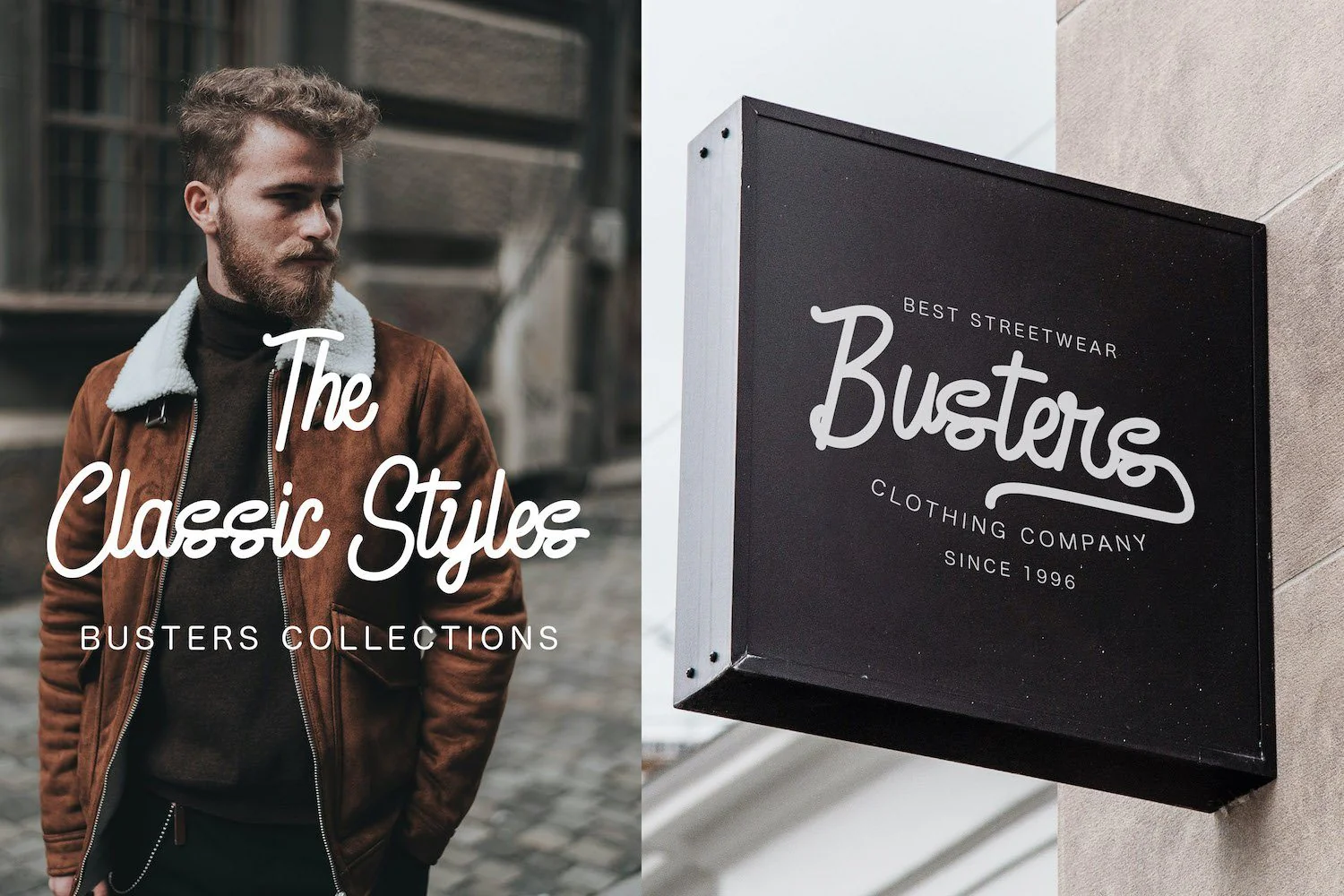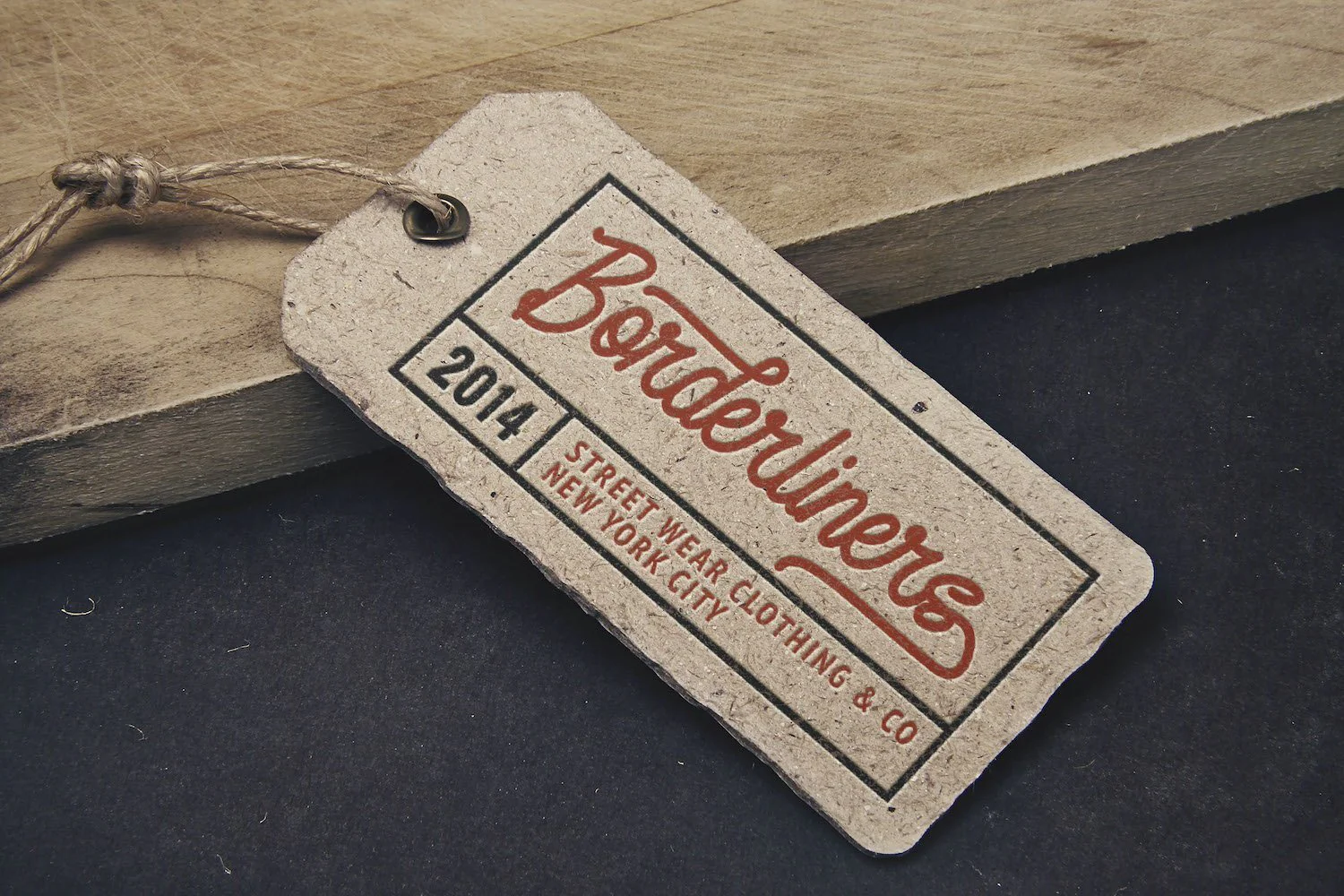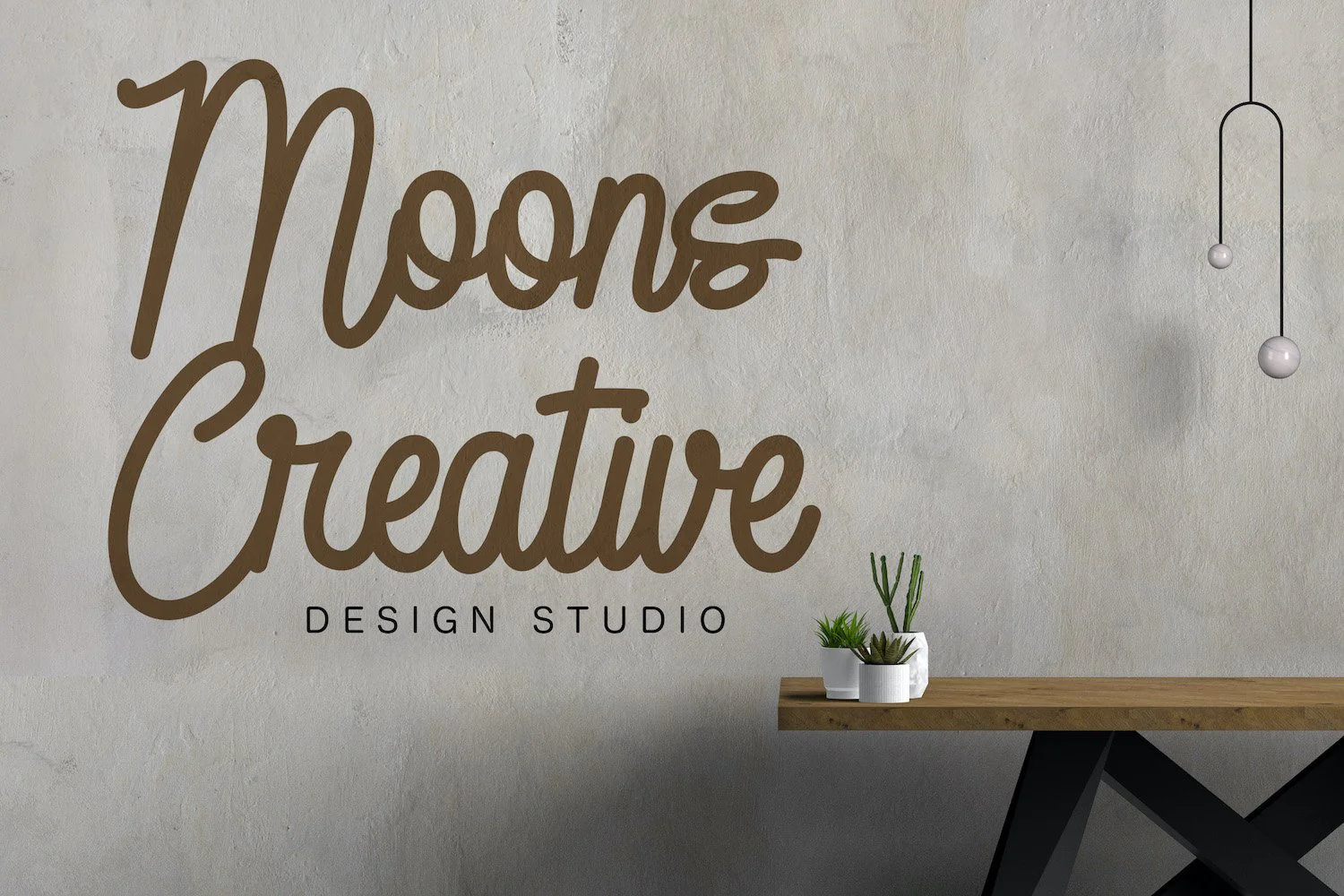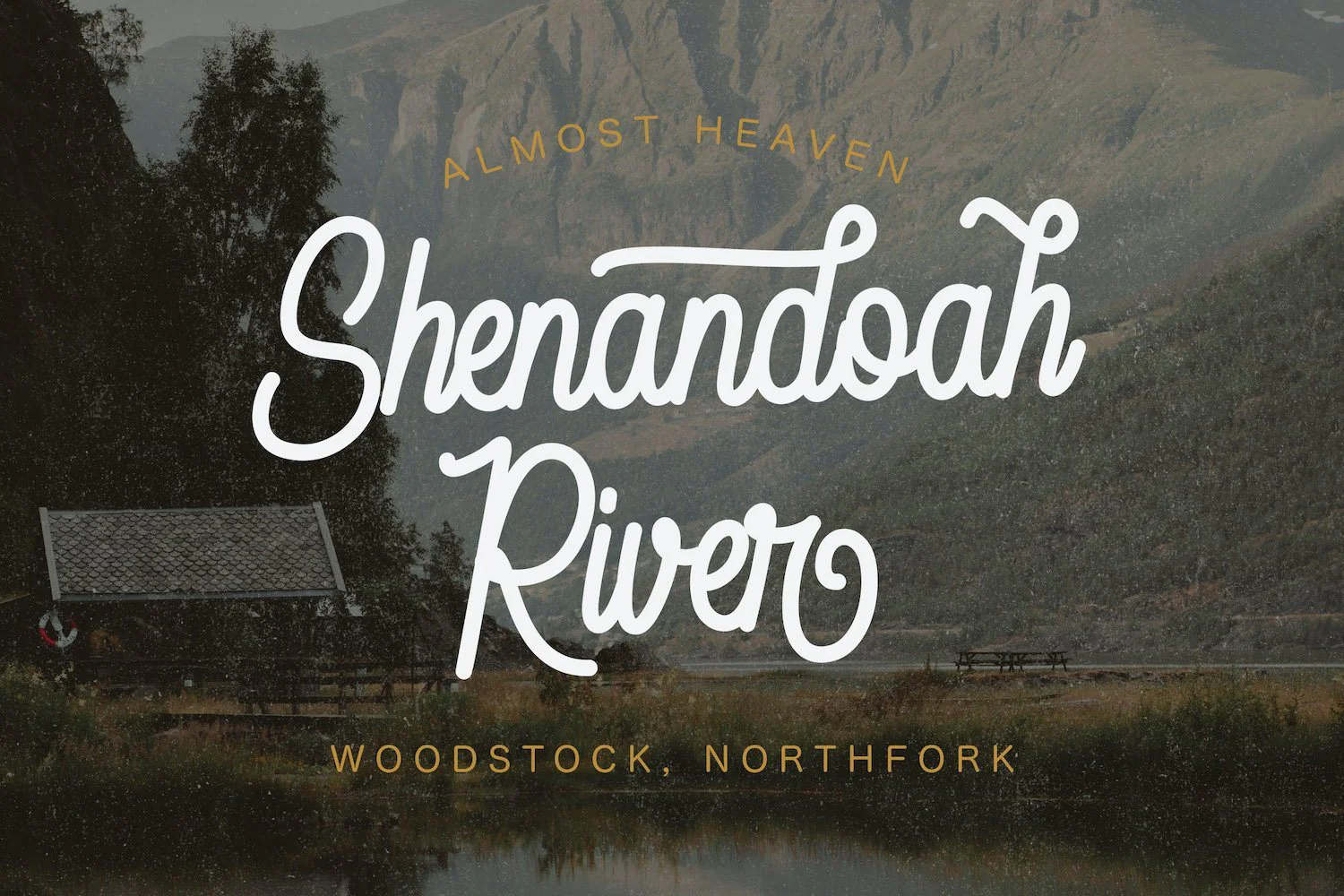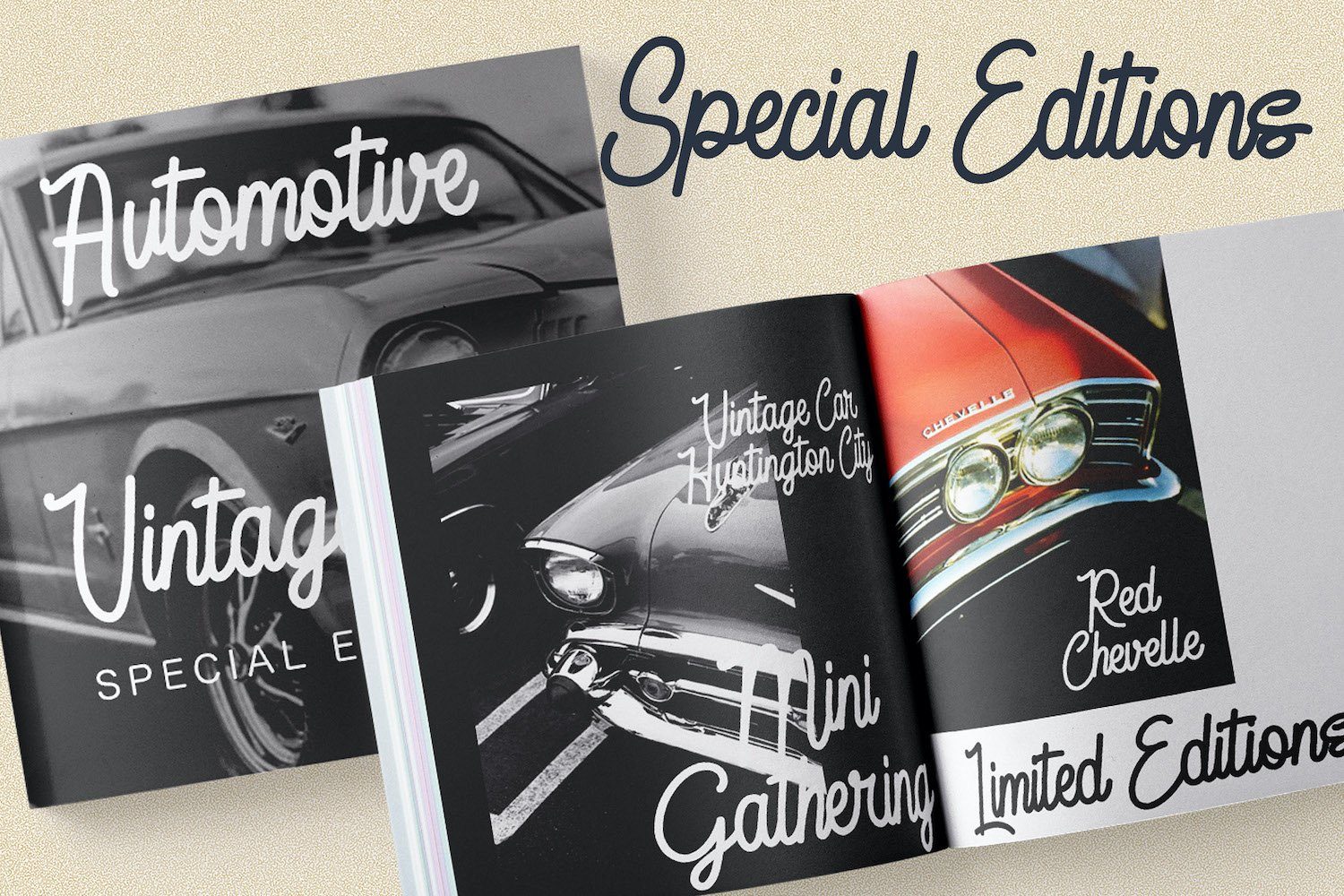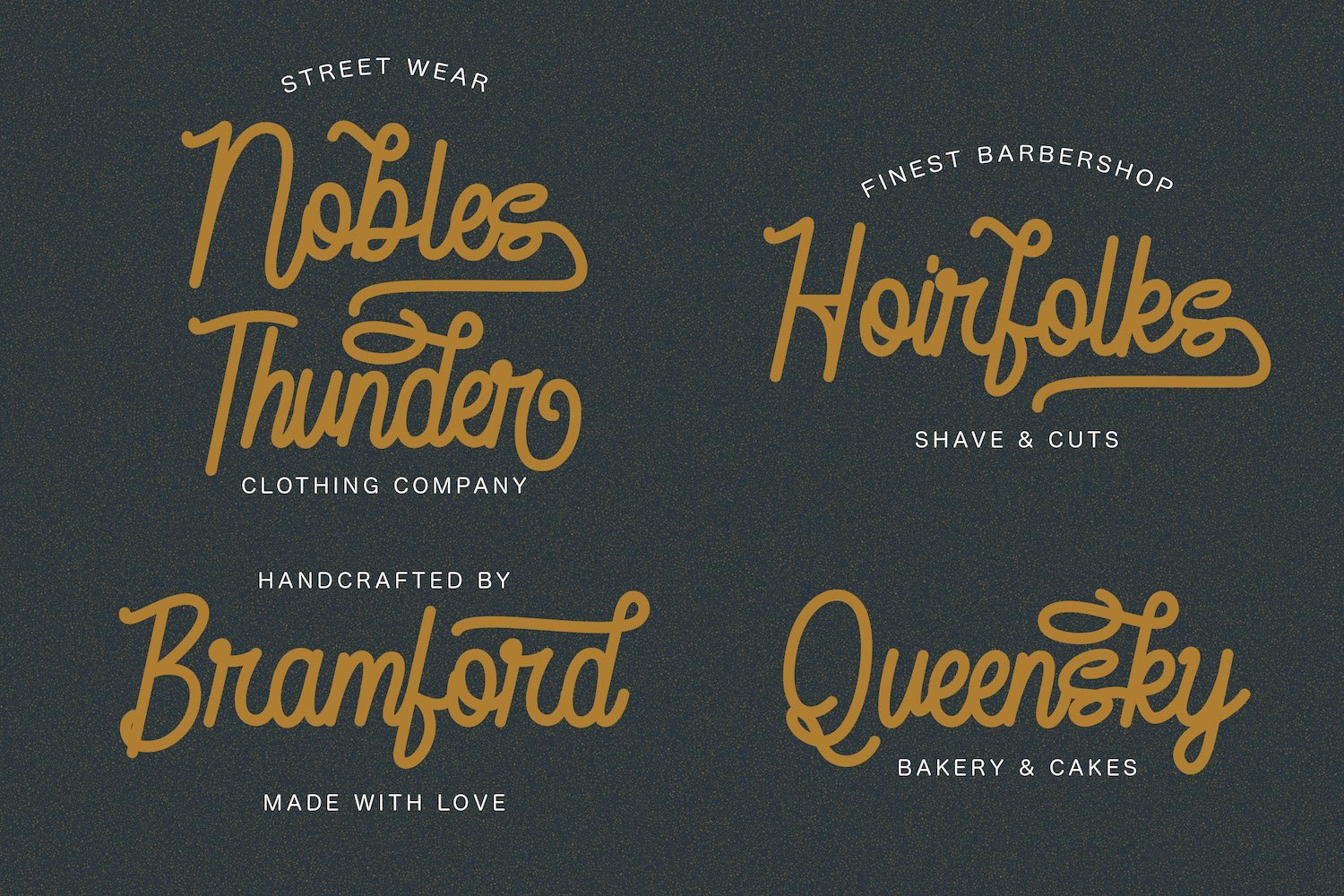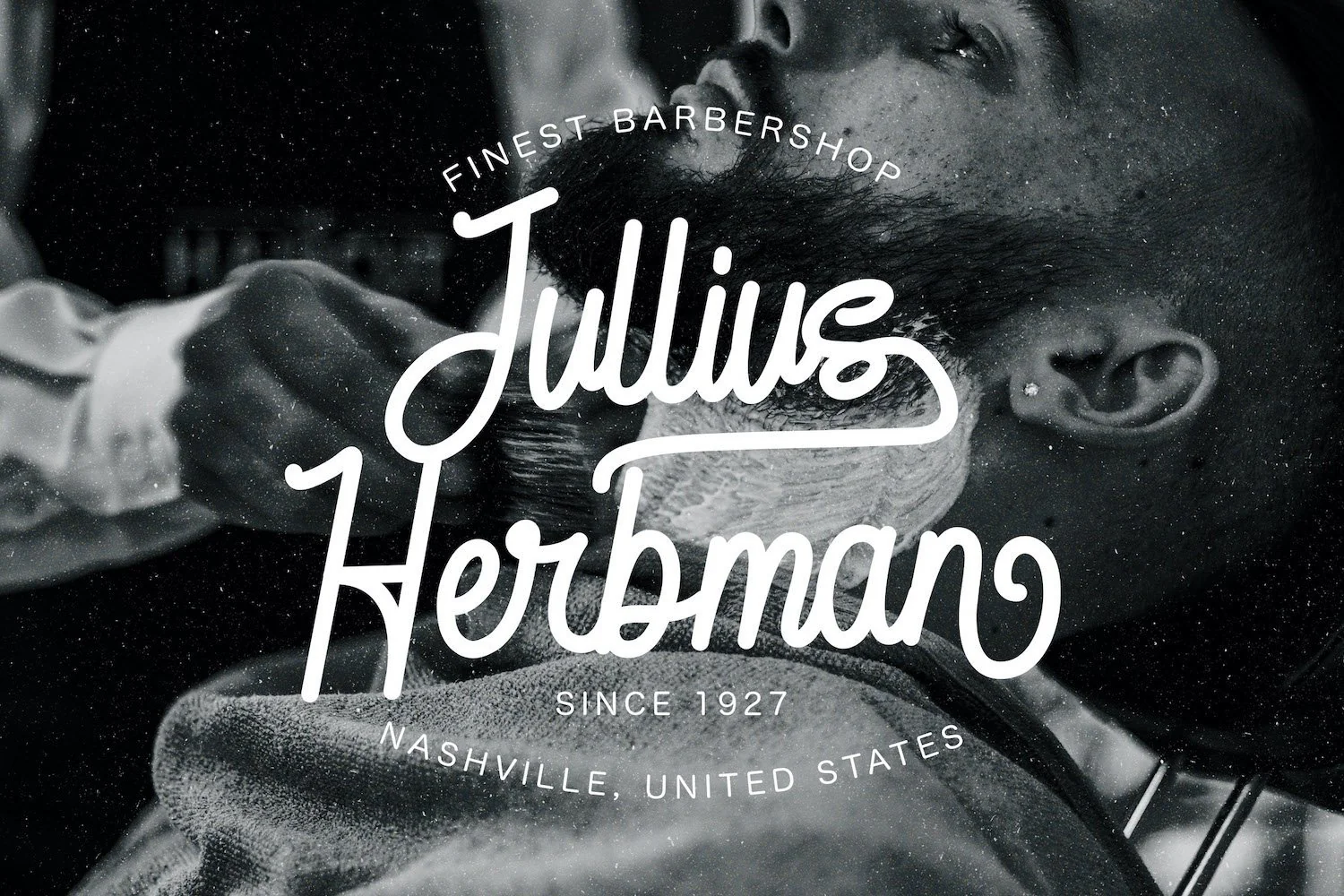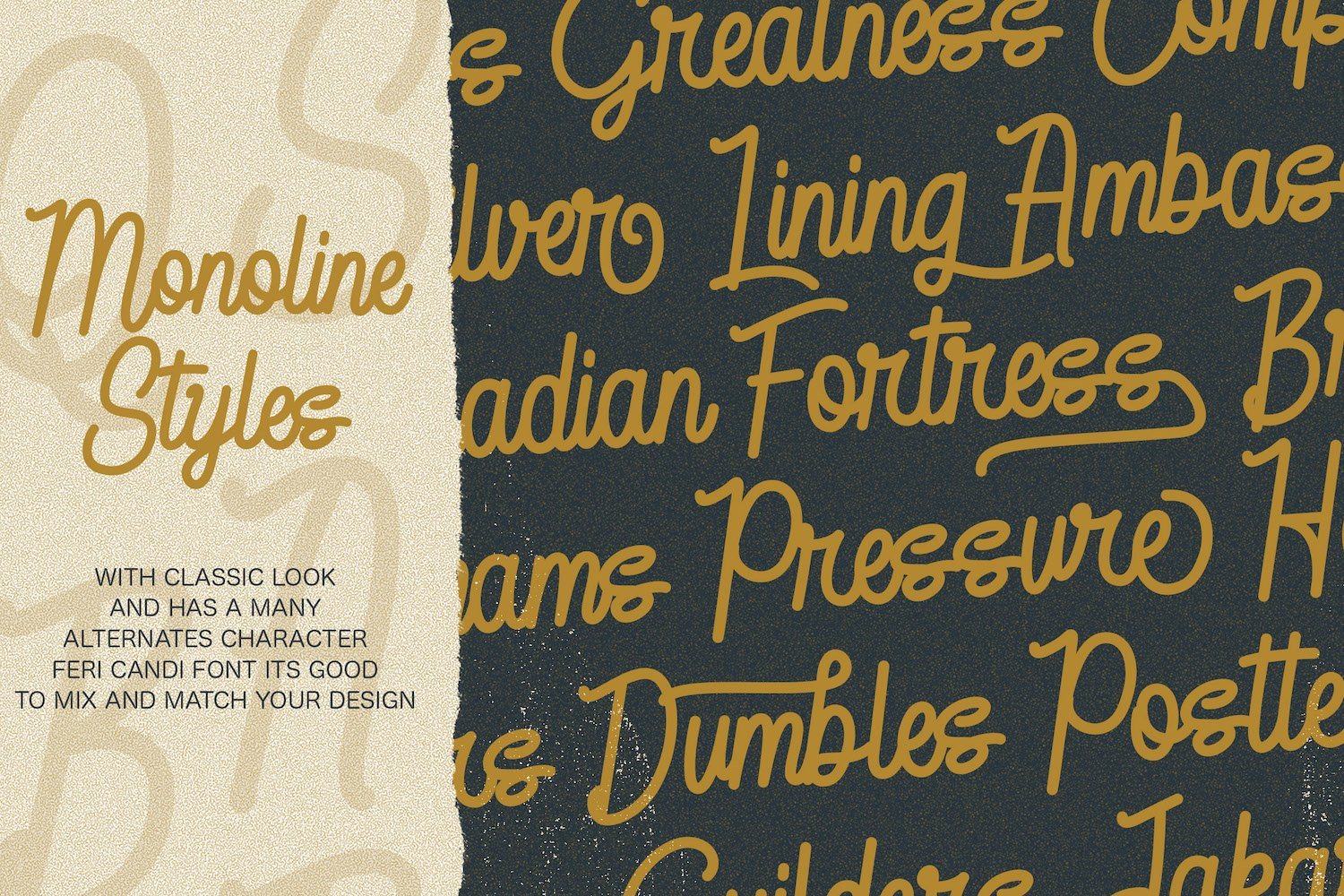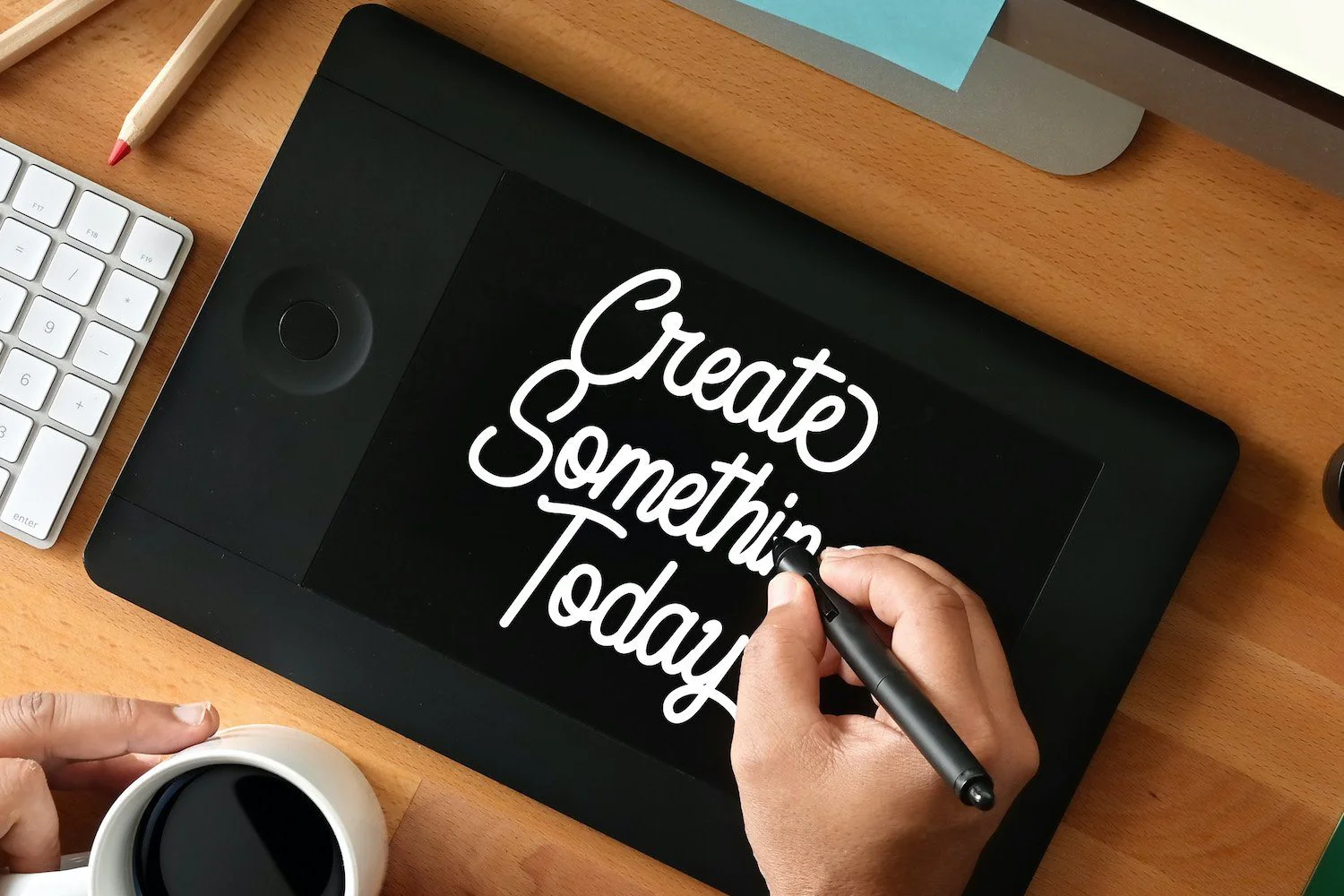
Feri Candi - Monoline Script Font
Introducing Feri Candi - Monoline Script Font
Feri Candi is a unique and dainty handwritten font. Stylish and beautiful, this font will make the perfect choice for each of your design ideas!
Introducing Feri Candi - Monoline Script Font
Feri Candi is a unique and dainty handwritten font. Stylish and beautiful, this font will make the perfect choice for each of your design ideas!